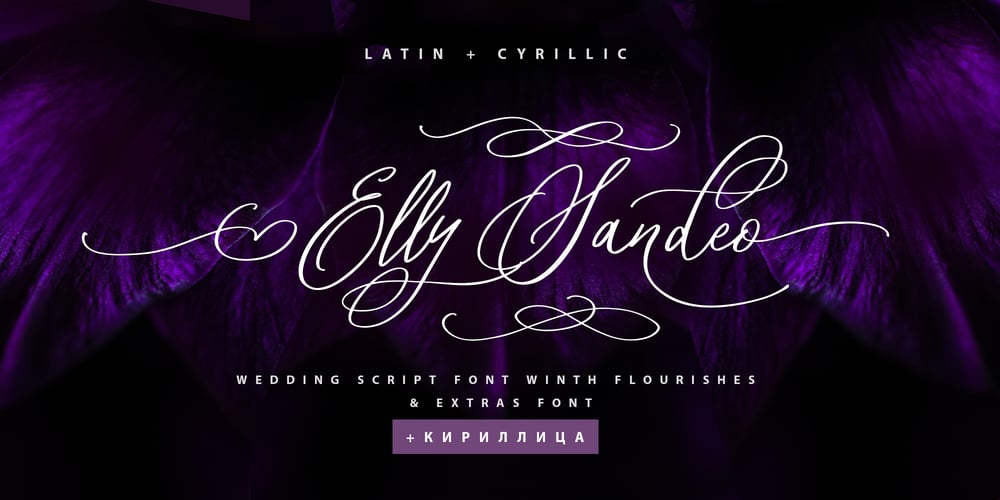
Elly Sandeo Cyrillic Font Family was designed by Iryna Dviliuk and published by Ira Dvilyuk. Elly Sandeo Cyrillic contains 2 styles and family package options. The Elly Sandeo Cyrillic font is a handwritten calligraphic wedding script font with. It is the font pair with will be the best option for branding, logos, wedding invitations, social media, packaging, business cards, DIY projects, social media, and many others.Elly Sandeo Latin part contains a full set of uppercase and lowercase letters. Also, lowercase letters have 6 sets of variable flourishes with teils. To make a needed form type a letter with a number such as a1, a2, a3, a4… b1, b2, b3… c1, c2, c3…after that select the word and apply the Open Type Features in programs such as Adobe Illustrator, Photoshop, and othersAnd 17 ligatures can be used to create a handwritten calligraphy look.The Cyrillic part of the font contains uppercase letters and 2 complete sets of lowercase letters, (standard, and final form. To make a needed form type a letter with a number such as a1, a2, a3, a4… б1, б2, б3… в1, в2, в3… After that select the word and apply the Open Type Features in programmes such as Adobe Illustrator, Photoshop, and others)The Elly Sandeo Symbols is a font with 26 hand-drawn elements and swashes that can help you to make your design unique and matchless. just use A-Z and a-z keys in the included Symbols font. A different symbol is assigned to each uppercase or lowercase standard character, so you do not need graphics software, just type the letter you need.Multilingual Support for 33 languages: Latin glyphs for Afrikaans, Albanian, Basque, Bosnian, Catalan, Danish, Dutch, English, Estonian, Faroese, Filipino, Finnish, French, Galician, Indonesian, Irish, Italian, Malay, Norwegian Bokmål, Portuguese, Slovenian, Spanish, Swahili, Swedish, Turkish, Welsh, Zulu.And Cyrillic glyphs support Russian, Belorussian, Bulgarian, Ukrainian, and Kazakh languages.